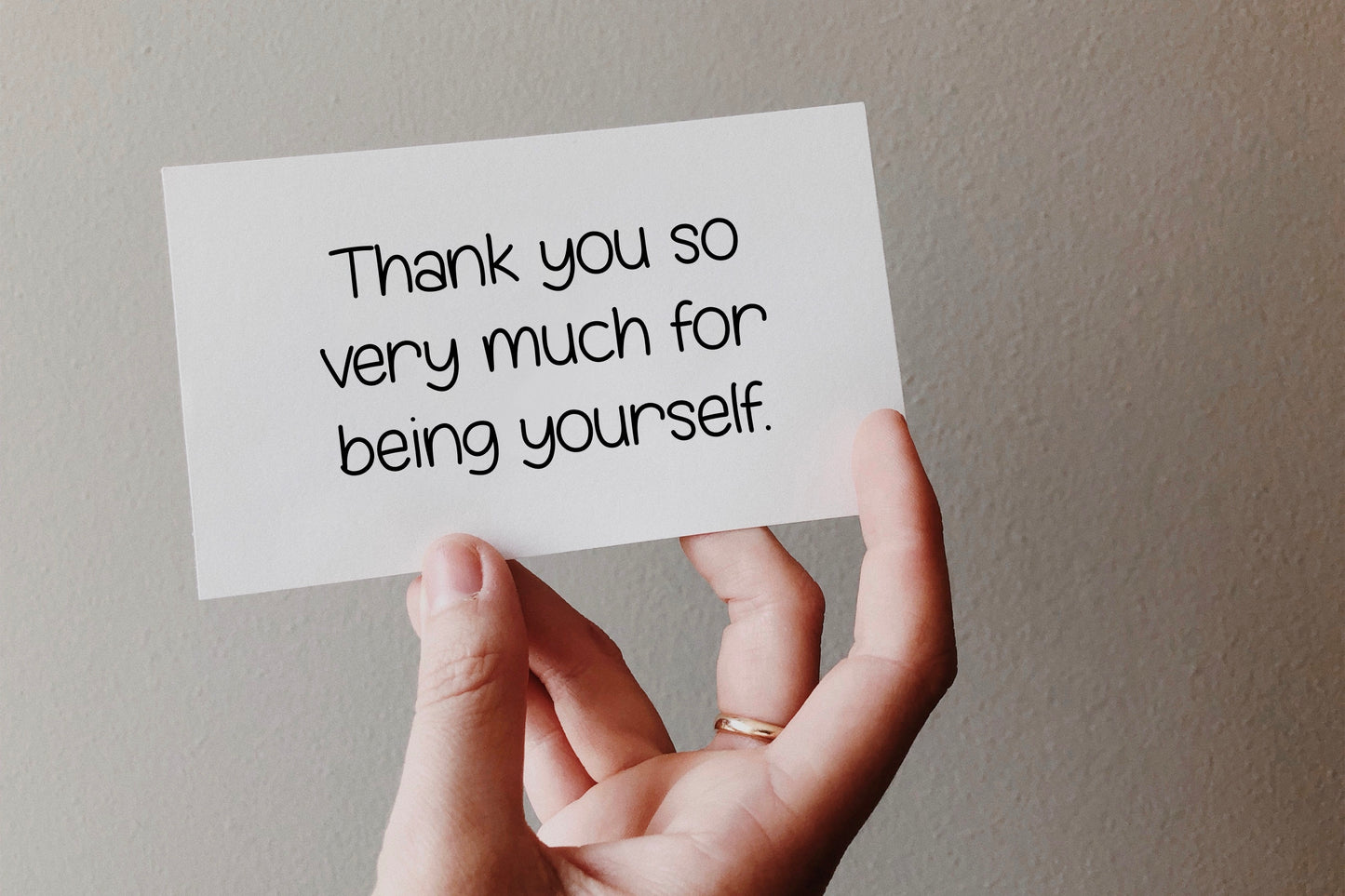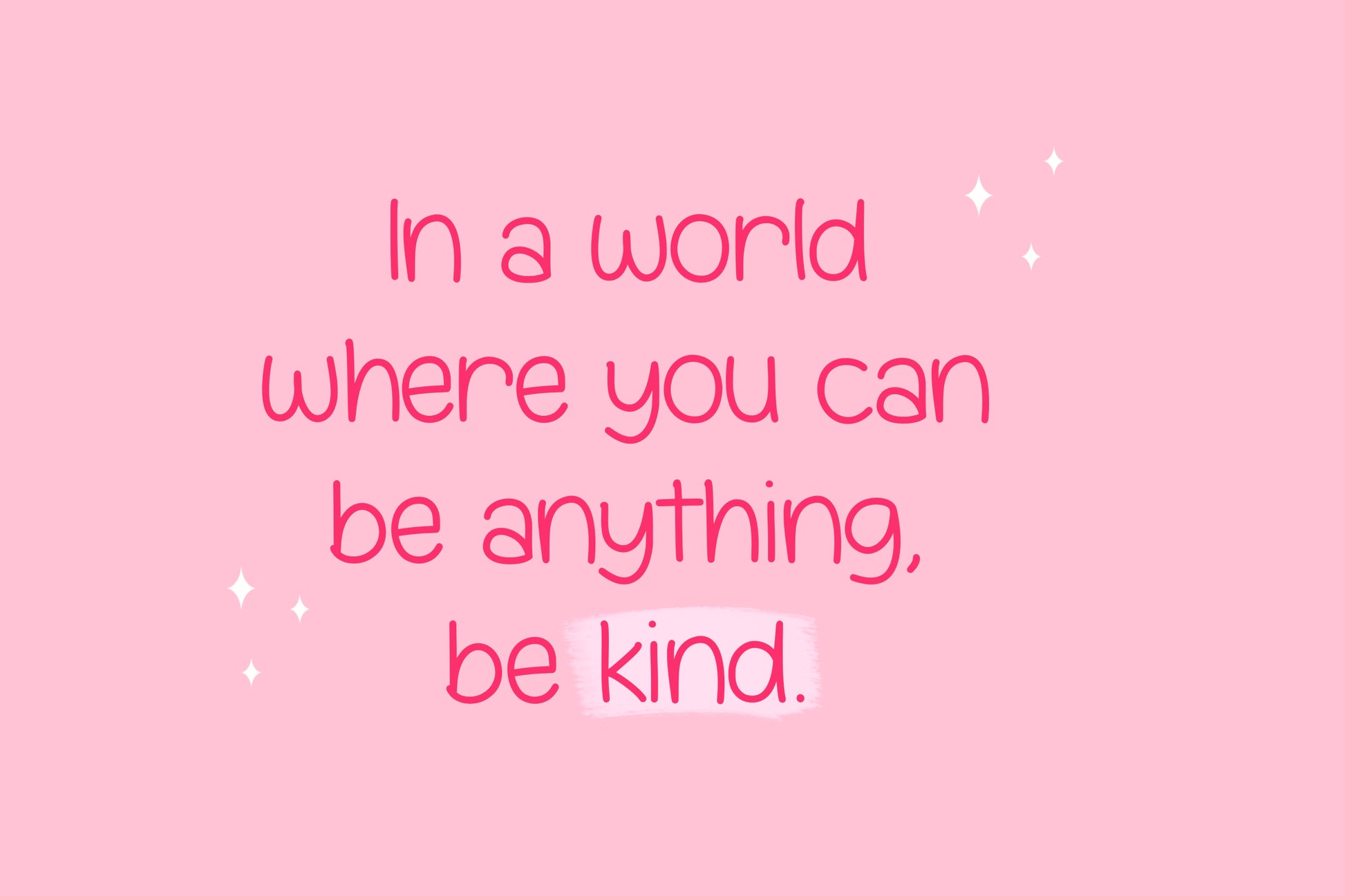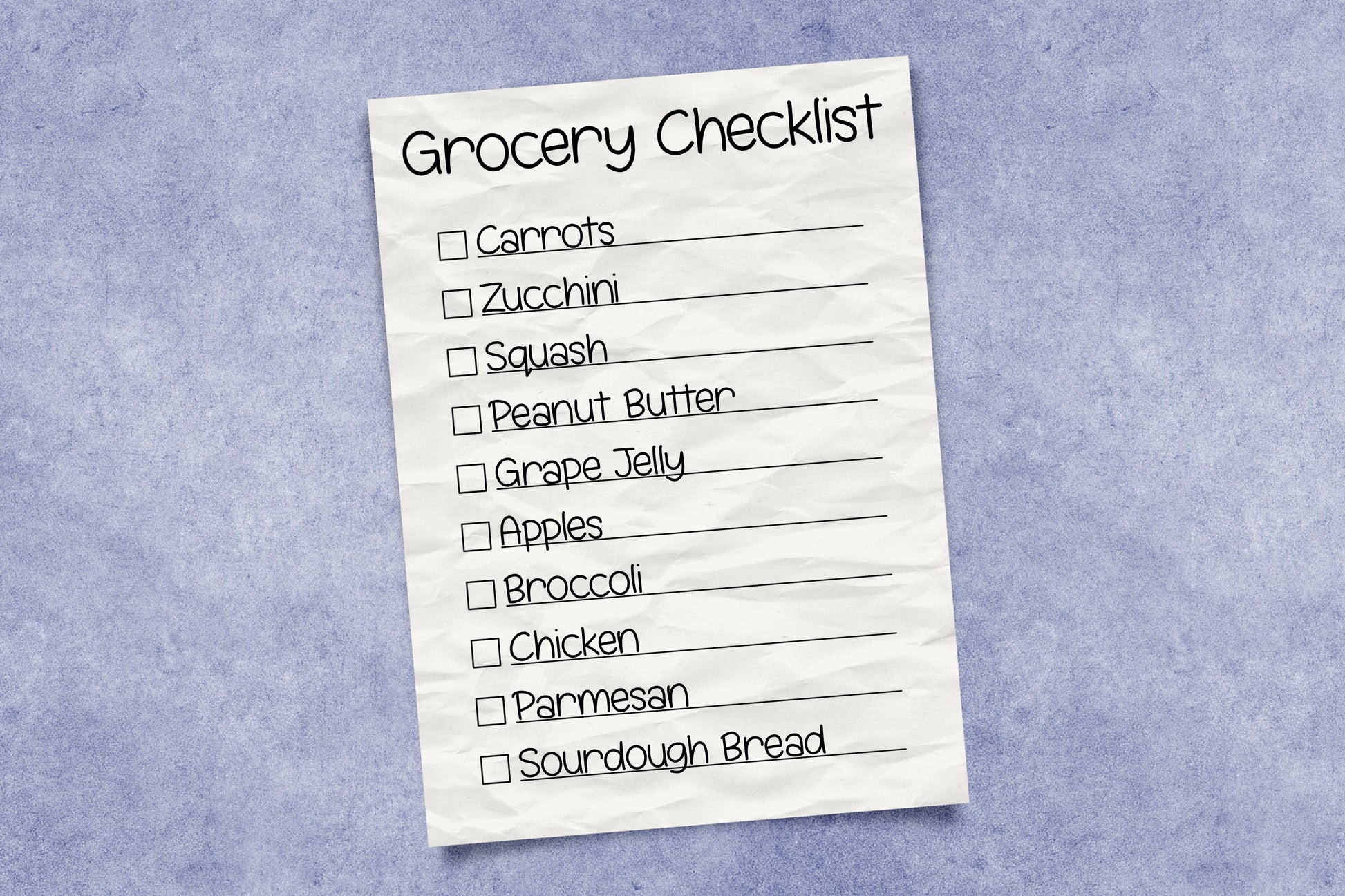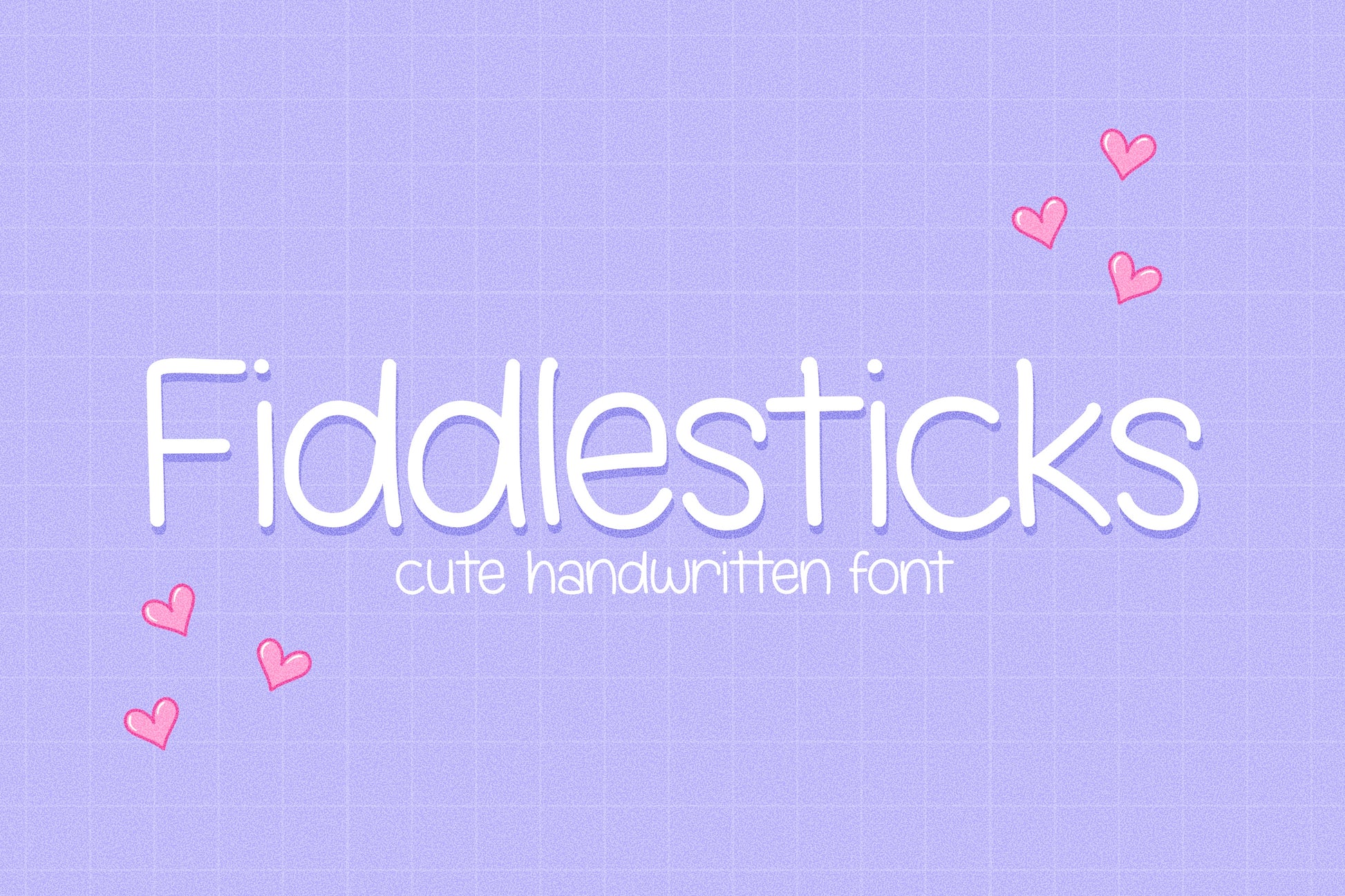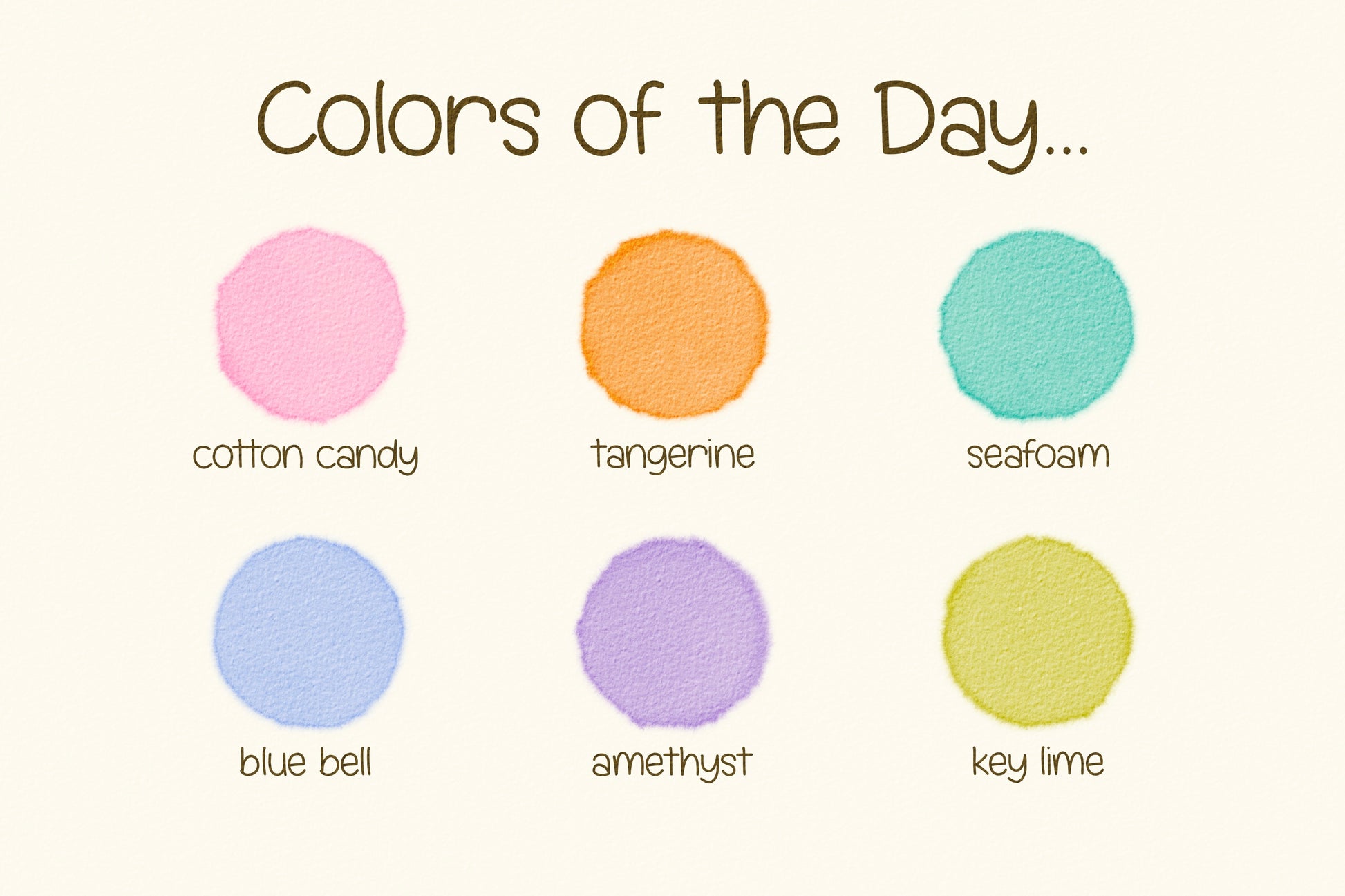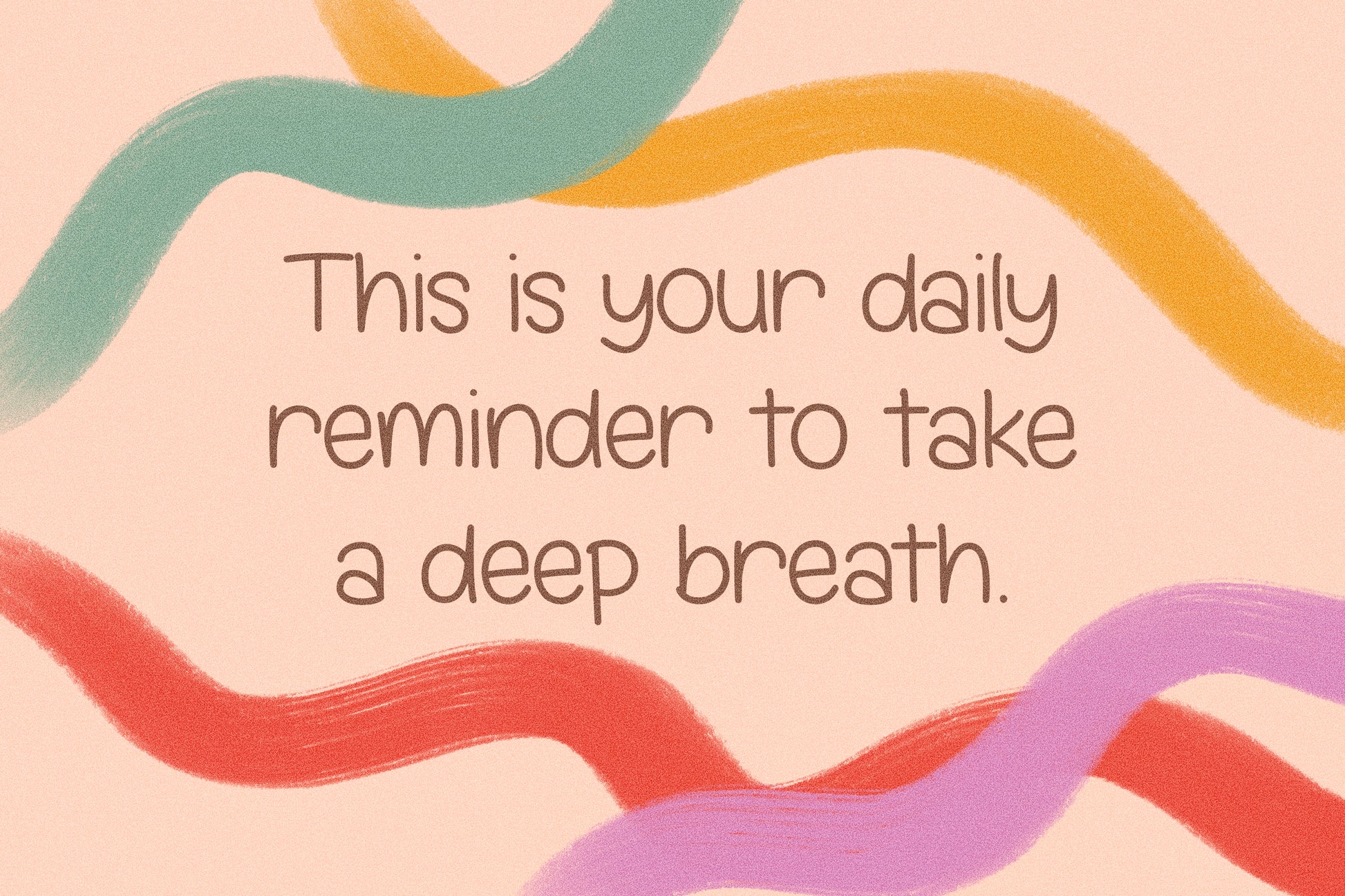
Fiddlesticks Handwritten Font
Introducing the Fiddlesticks handwritten/hand drawn font. This cute, natural font will add a fun, happy, handmade touch to your design! This versatile font is great for playful and casual designs, logos, posters, and more, but I find it especially perfect for note taking!